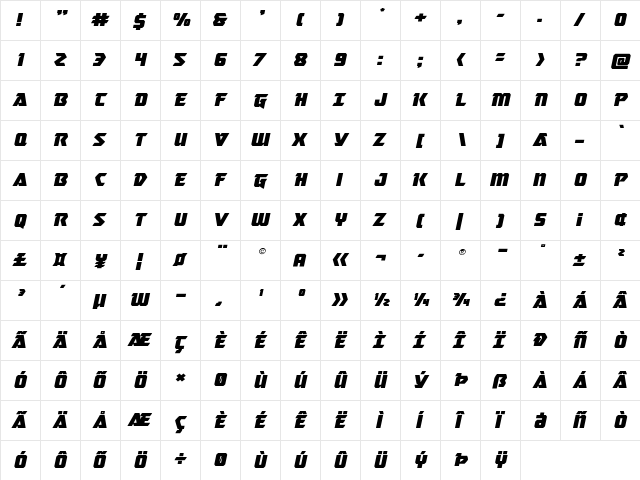
Master Breaker Expanded Italic Expanded Italic
Design Context for Master Breaker Expanded Italic Typeface
Master Breaker Expanded Italic is a composed and adaptable typeface that performs quietly and consistently across a wide range of design contexts. The slanted form adds forward momentum and visual energy.
Pro Tip: Use Master Breaker Expanded Italic for emphasis, pull quotes, and subheadings where its slanted energy can add rhythm to the layout.